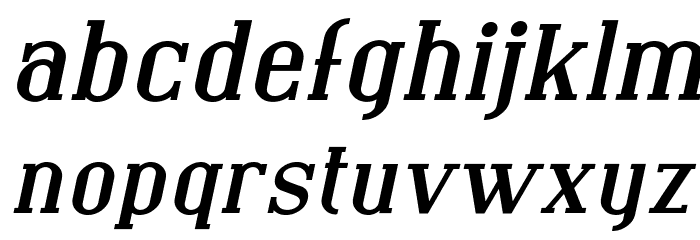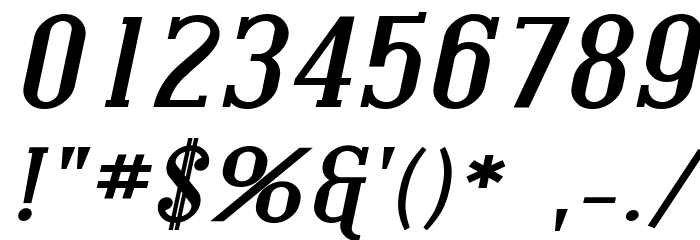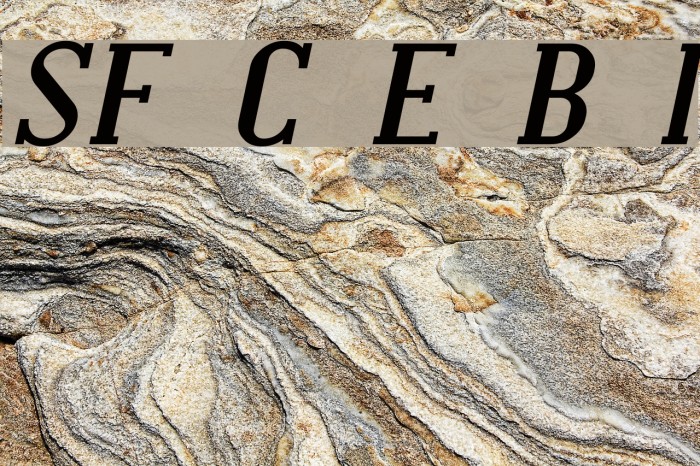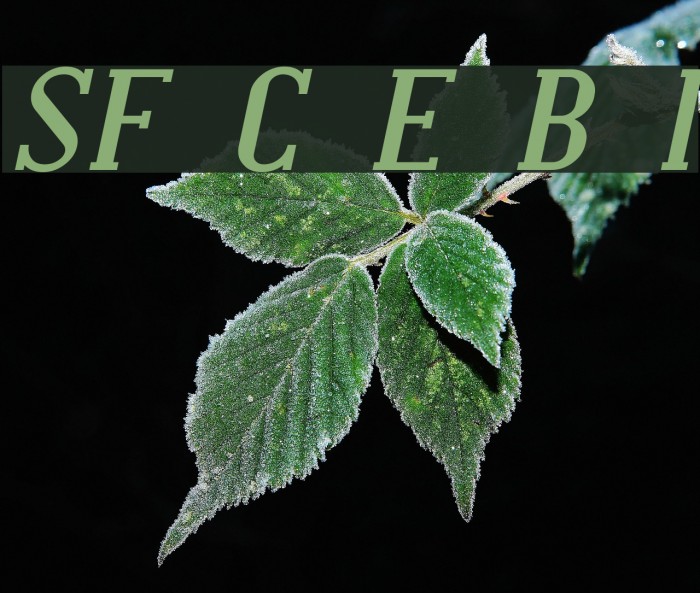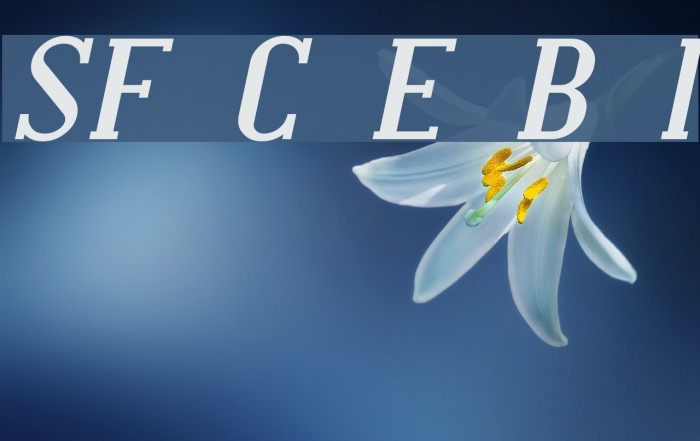
SF Covington Exp Bold Italic Font
This font exhibits a bold and italicized style with a distinct slant, giving it a dynamic and energetic appearance. The characters are well-defined with a moderate contrast between thick and thin strokes, enhancing readability while maintaining a stylish flair. The uppercase letters are slightly taller than average, contributing to a commanding presence. Lowercase letters are proportionate and maintain the same slant, ensuring consistency across text. The numerals are clear and balanced, matching the overall boldness of the font. Special characters are designed to integrate seamlessly with the alphabetic characters, maintaining the font's cohesive look.
A bold, italicized font with a dynamic slant and moderate stroke contrast.
- Proposed Projects: Ideal for headlines, branding, and advertising where a strong, stylish impact is desired.